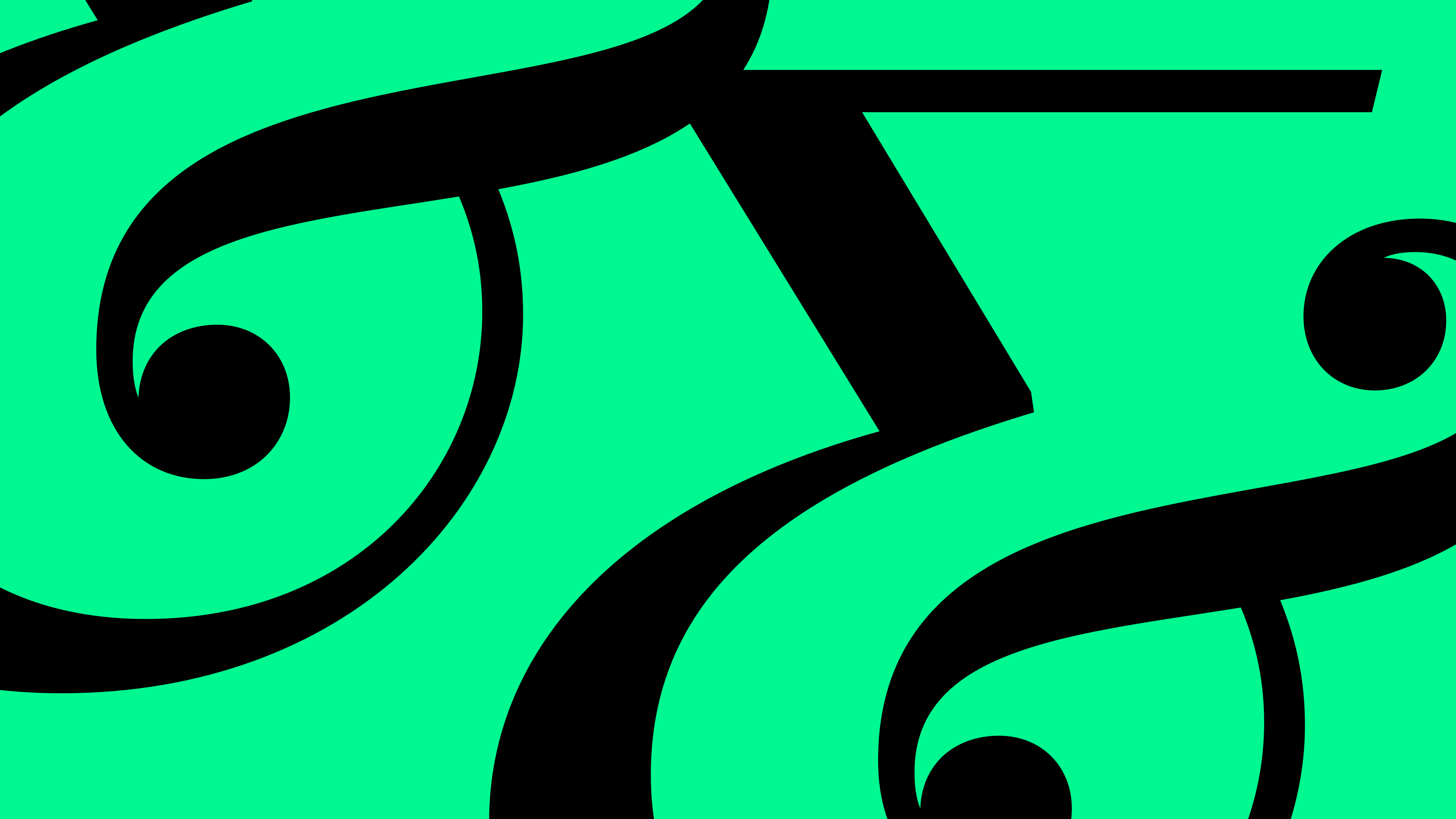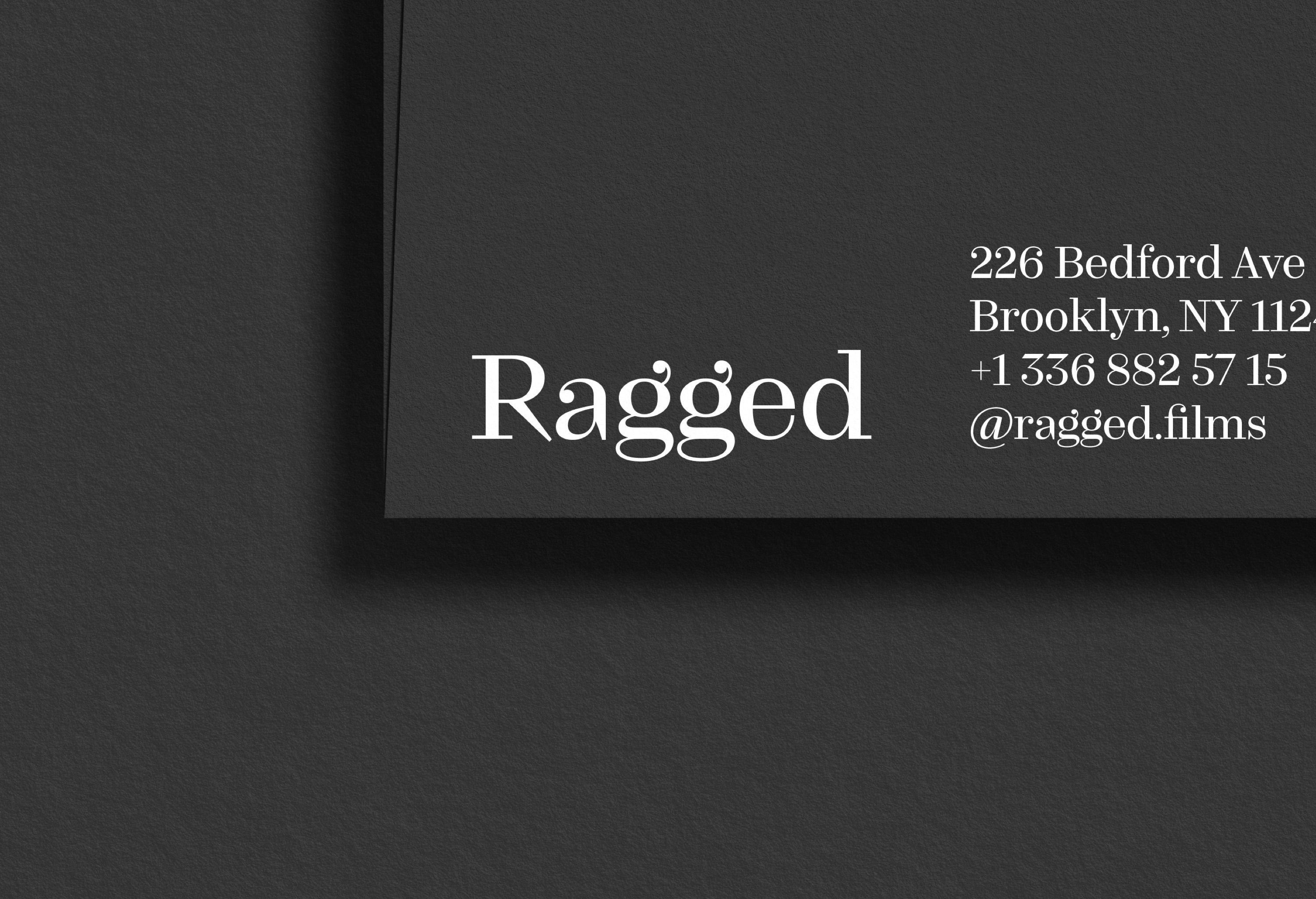
Kreol
The early years of the 19th century were a time of restlessness. In the midst of this revolutionary era, new typefaces emerged that were breaking from the norm and whose sole purpose was to attract attention. Kreol builds on this and bridges the gap between tradition and modernity. It is a refined and contemporary interpretation of an evergreen.